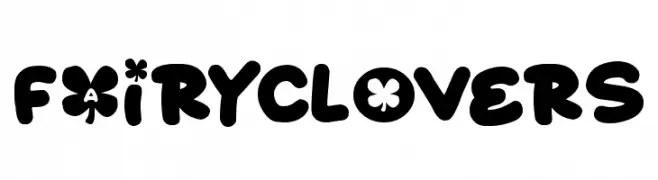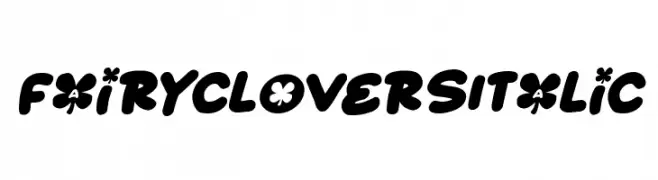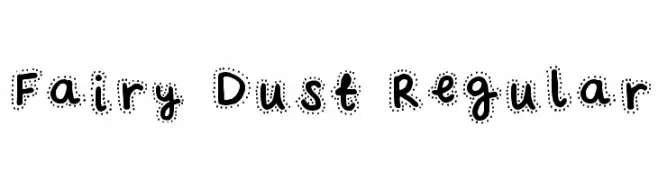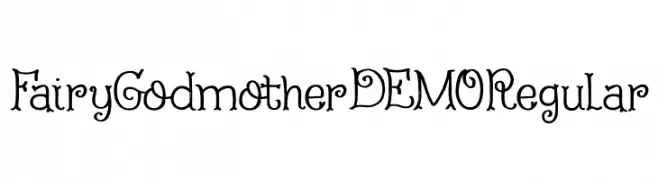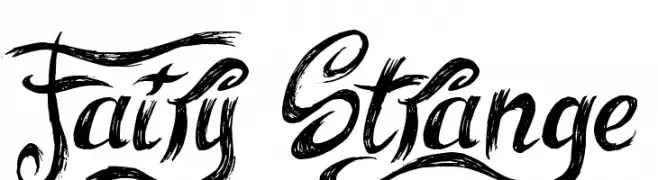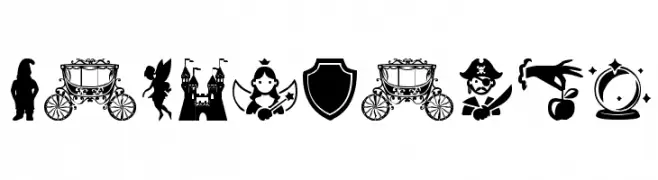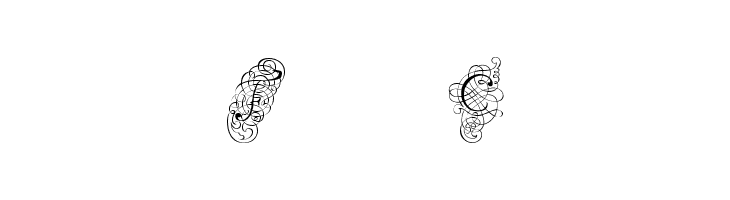
A playful, bubbly font with rounded, bold characters ideal for fun and whimsical projects.
A bold, rounded, and playful italic font with clover-like elements.
A whimsical, playful font with flowing curves and a hand-drawn appearance.
A whimsical, dotted outline font with a playful, fairy-tale style.
A whimsical, fairy-tale inspired font with decorative, magical elements.
A whimsical, handwritten font with playful, cursive-like strokes.
A rugged, textured font with a distressed, organic appearance.
A whimsical, brush-like font with elegant swirls and a mystical charm.
A whimsical, decorative font with intricate floral patterns.
Decorative fairy tale icon font with playful, bold silhouettes.